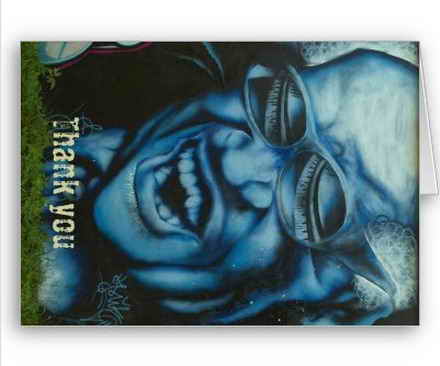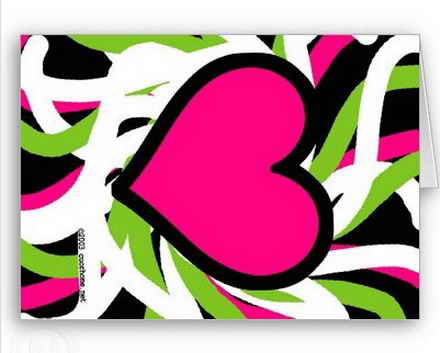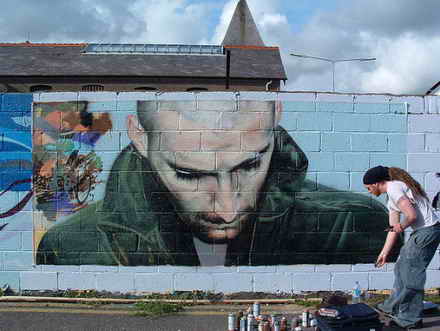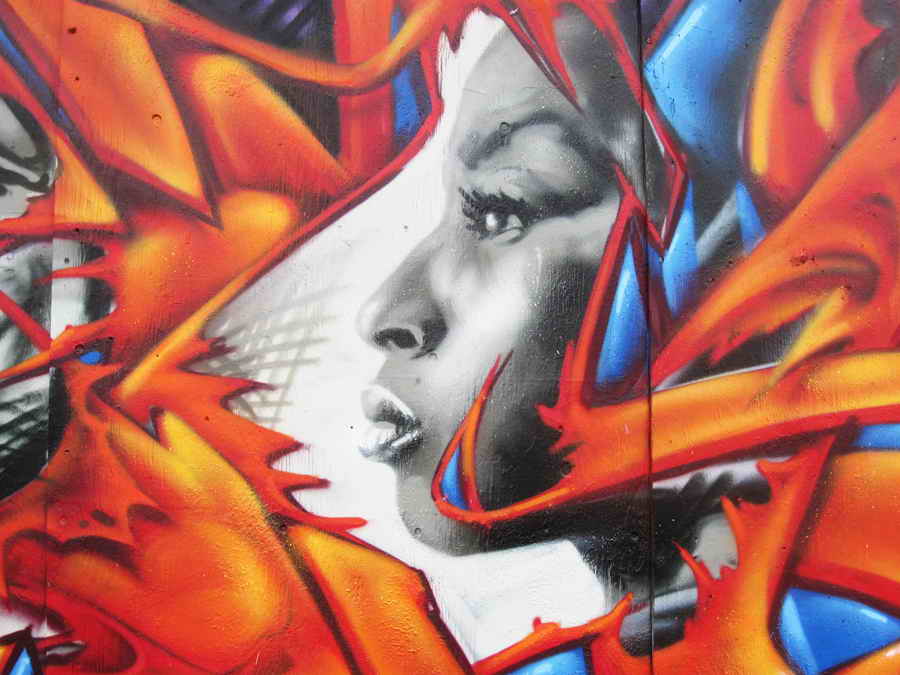
Graffiti Writing A-Z: Cool Tagging Letters, Bubble Effects
Graffiti writing A-Z black and white. Tagging letters cool, with a slight bubble effect look nicer. Examples of graffiti writing letters A-Z cool. Can you make amazing graffiti as above. different styles.
Graffiti Letters: Lower Case and Upper Case Words
Graffiti Letters: lower case and upper case words. Graffiti alphabet letters to make words in Christmas Card.
Tagging Graffiti Name "Matt Revolds"
10 Christmas Card Design - Graffiti
10 Christmas Card Design - Which is associated with graffiti. Please see the Christmas card designs and their creators below:
Funky graffiti designs card by ziggysofi.
Graffiti Greeting Card by ahbe123.
Graffiti Rainbow Cards by thecharacterfactory.
Thank you - graffiti cards by OutOfLimits. See the Christmas card designs on Zazzle
Merry Xmas card by holiday_tshirts
Funky graffiti designs card by ziggysofi.
Home gurl (girl) graffiti design greeting card by doonidesigns.
Graffiti Pink Heart Card by elisaemme
Graffiti Alphabet No L Red for Christmas Card by TerryBain.
Graffiti Love Cards by bwmedia.
Graffiti Greeting Card by ahbe123.
Playa graffiti design greeting card by doonidesigns.
Graffiti Rainbow Cards by thecharacterfactory.
Thank you - graffiti cards by OutOfLimits. See the Christmas card designs on Zazzle
Graffiti Name Maker "John"
Graffiti Name Maker "John". Write name in graffiti. The easiest example to make graffiti is as above. Graffiti sketch and then practice on the wall. may need to exercise several times so that you create graffiti looks like the sketch, or can you make with the letters graffiti wild style of your own creation. I think (new-graffiti) it was cool.
Graffiti Black Book Character MatyL
Graffiti Black Book Character MatyL. MatyL graffiti letters with the character of punk. Cool graffiti sketch. graffiti from there trans1 see more graffiti blackbooks.
7 Best Graffiti Art Mural Face of Juseone
7 Best Graffiti Art Mural Face of Juseone. Seventh choice faces cool graffiti on the wall according to new-graffiti. See the photos below:
Graffiti murals wallpaper male
Graffiti murals on the walls of a woman's face. Graffiti creator juseone
Graffiti murals wallpaper male
Graffiti murals on the walls of a woman's face. Graffiti creator juseone
4 Tagging Letters Styles: Graffiti Alphabet A-Z
4 Tagging Letters Styles: Graffiti Alphabet A-Z. This is a graffiti tagging alphabet letters from Germany. Combat graffiti tagging letters from Bombing Science. with the rules "Tag each letter of the alphabet with pencil, pen, marker". The following is the fourth in graffiti tag letters choose from 50 image:
1. Tag A-Z style KNOWME. Got a very basic, but effective tag style. His alphabet letters are simple but got continuous “quality”.
2. Havok graffiti tagging letters: has a very good marker control; his alphabet keeps a solid quality from beginning to the end
3. Hopes calligraphy graffiti fonts: The letters are very nice and creative; the alphabet got a solid quality from beginning to the end; the complete work builds an own harmonic artwork.
4. Graffiti alphabets PROPER. I guess PROPER used a small brush pen to get this effect which reminds me of the look of fat cap tags. Letters are interesting and got flow. Source: bombingscience
1. Tag A-Z style KNOWME. Got a very basic, but effective tag style. His alphabet letters are simple but got continuous “quality”.
2. Havok graffiti tagging letters: has a very good marker control; his alphabet keeps a solid quality from beginning to the end
3. Hopes calligraphy graffiti fonts: The letters are very nice and creative; the alphabet got a solid quality from beginning to the end; the complete work builds an own harmonic artwork.
4. Graffiti alphabets PROPER. I guess PROPER used a small brush pen to get this effect which reminds me of the look of fat cap tags. Letters are interesting and got flow. Source: bombingscience
My Name in Graffiti Using the Graffiti Gadget Laser
Boingo Letters, Boingo Graffiti Style Fonts
Boingo Letters, Boingo Graffiti Style Fonts. Graffiti letters A-Z and the numbers 0-9
Funky Graffiti Alphabet Letters: Different Graffiti Styles
Funky Graffiti Alphabet Letters by Brooks. Graffiti letters cool, odd and symbols with alt code. Each of the letters describe the strange character fonts. But different graffiti styles like these that make graffiti letters above cool.
Final Graffiti Alphabet Letters by Dime10C
Graffiti Designs Pictures: 10 Graffiti Art Work
Graffiti Designs Pictures: 10 Graffiti Art Work. See graffiti designs creations of the artists. Cool graffiti with different styles, according to the character creator graffiti.
3D graffiti art
Jam Graffiti HEC
Chicago graffiti
Cork Graffiti on the wall
Four Mile Graffiti art
Cork Graffiti and its creator
Graffiti art photography